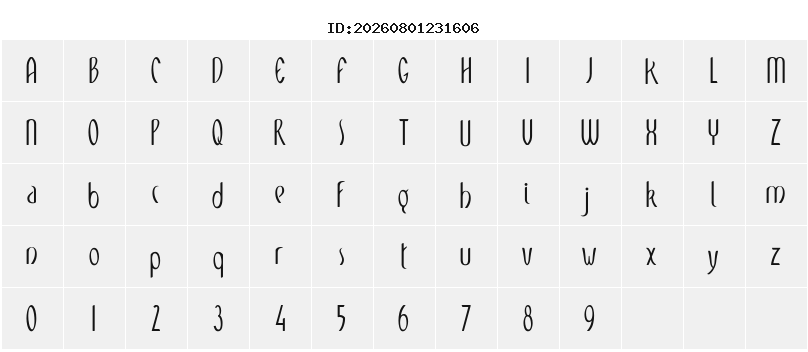
Meditation Preview
• Font Name: Meditation
• Full Font Name: Meditation
• Designer: Florian Bambhout
About Meditation.ttf
Meditation.ttf is a modern, elegant sans-serif font designed for ultimate readability and visual harmony. Perfect for branding, headlines, web design, and print materials.